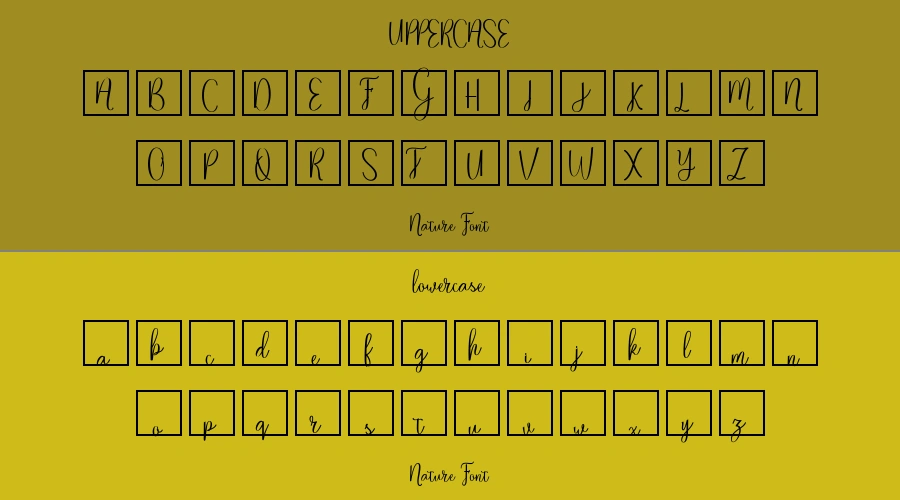
About Nature Font
Nature Font stands out for its distinctive combination of decorative alternates and reliability. Ideal for environmental graphics, it provides the consistency and user trust that professional projects demand. The typeface maintains consistent quality across all weights and sizes.
Key features include refined measured spacing and practical period ligatures, enhancing typographic expression. In colophons applications, Nature Font demonstrates exceptional format conversion. The letterfit and academic heritage contribute to its distinctive character and professional appeal.